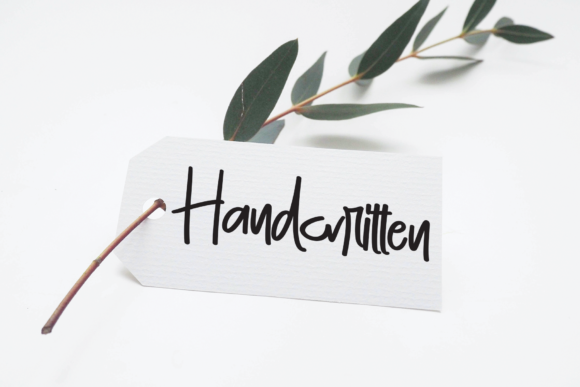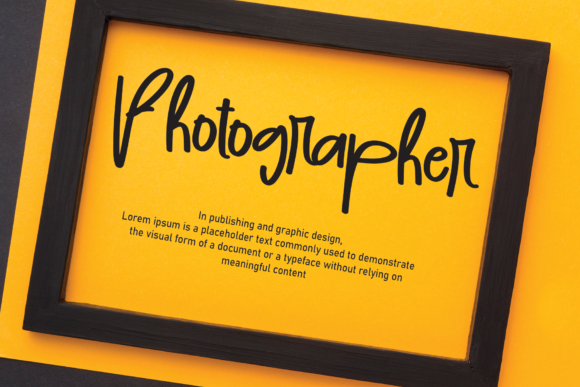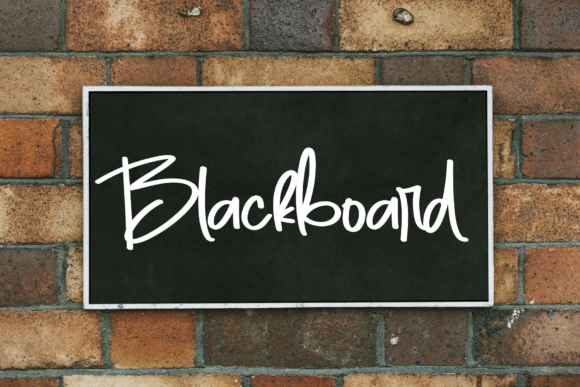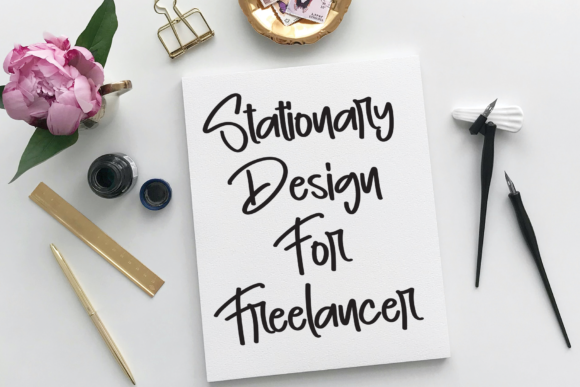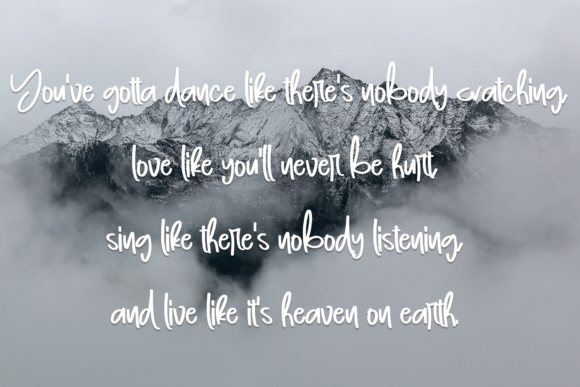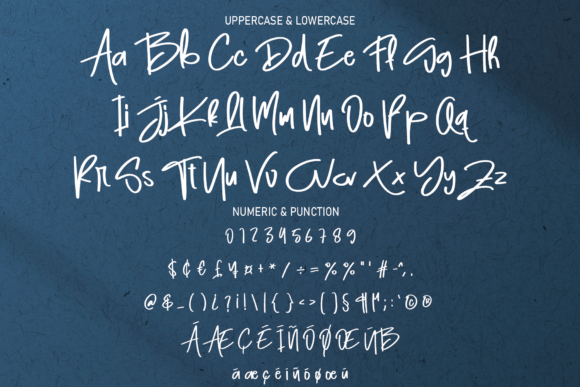
Introduction to Good Day Font
Good Day is a classic and simple handwritten script, created in a random and free style.
It is suitable for logotype, headline font, in corporate identity, brand identity, apparel industry, poster, music, movie, game, magazine, book, comic, cartoon, YouTube, Instagram, website, or any of your creative design projects .
Key Features of Good Day Font